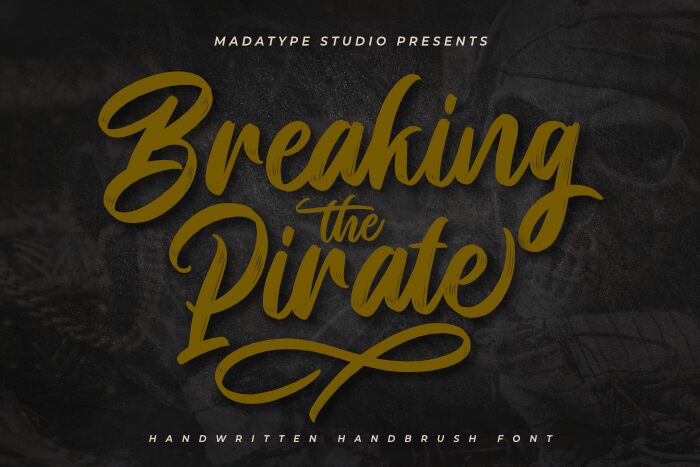
Breaking Pirate
Introducing Breaking Pirate, a light brush script font designed by Andri Ardianto and Madatype Studio. Perfect for projects requiring a playful, yet sophisticated look, Breaking Pirate is the ideal choice for logos, posters, social media banners and more.
Andri Ardianto & Madatype Studio